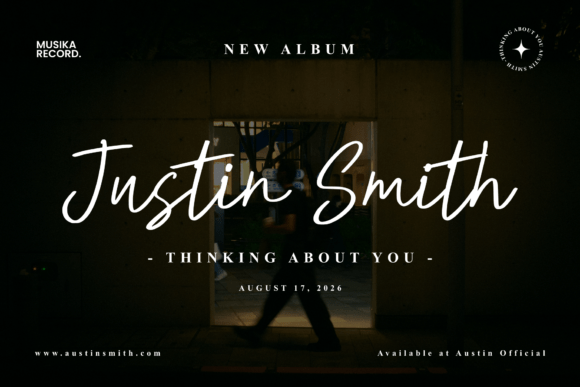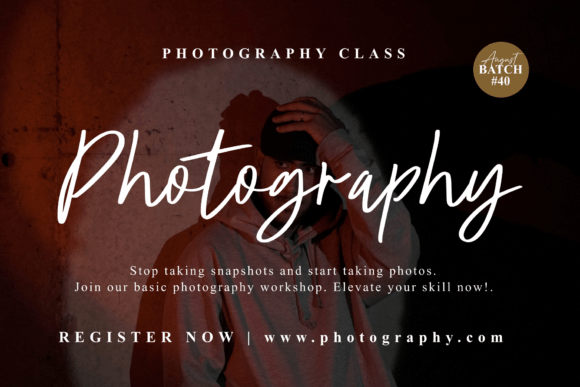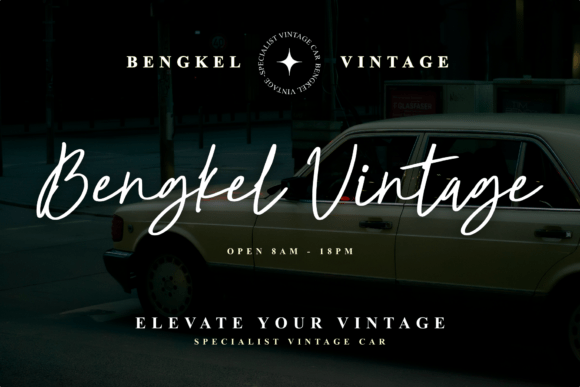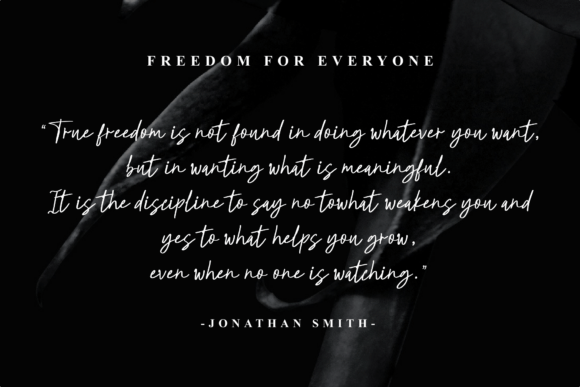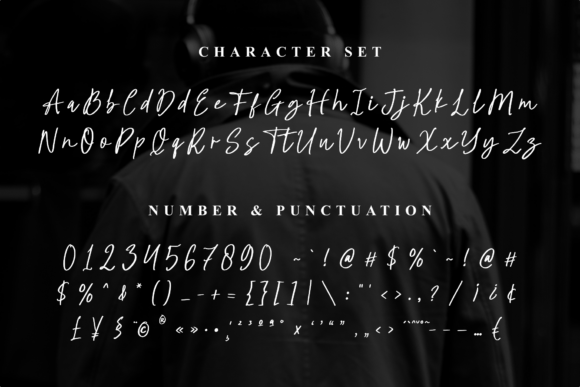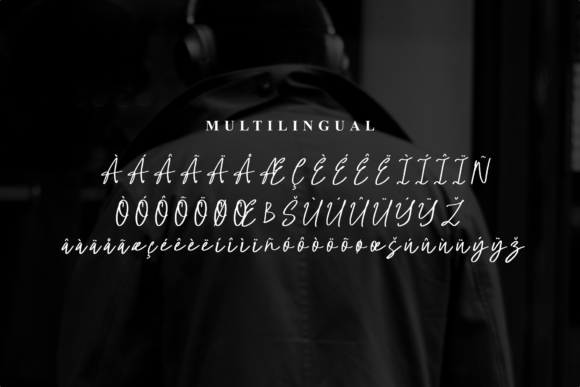
Introducing Blastery Signature Font: The Sweet and Cursive Handwriting Font for Your Design Needs
Are you a designer or crafter looking for a font that can add a touch of elegance and whimsy to your projects? Look no further than Blastery Signature Font! This beautiful, cursive handwriting font is perfect for a variety of design ideas and is sure to make your work stand out. In this article, we’ll take a closer look at Blastery Signature Font and explore its features, uses, and benefits.
What is Blastery Signature Font?
Blastery Signature Font is a sweet and cursive handwriting font that is designed to add a fun and romantic touch to any project. Its soft, flowing lines and delicate curves make it perfect for creating beautiful, eye-catching designs. Whether you’re working on a branding project, creating a logo, or designing a wedding favor, Blastery Signature Font is the perfect choice.
Features of Blastery Signature Font
So, what makes Blastery Signature Font so special? Here are just a few of its key features:
- Cursive handwriting style: Blastery Signature Font has a beautiful, cursive handwriting style that is perfect for creating elegant and sophisticated designs.
- Soft and delicate curves: The font’s soft and delicate curves make it perfect for creating romantic and whimsical designs.
- Fun and playful vibe: Despite its elegance, Blastery Signature Font also has a fun and playful vibe that’s perfect for creating designs that are a little bit quirky and offbeat.
- Highly versatile: Blastery Signature Font can be used for a wide range of design projects, from branding and logos to wedding favors and greeting cards.
Uses for Blastery Signature Font
So, what can you use Blastery Signature Font for? The possibilities are endless! Here are just a few ideas to get you started:
- Branding and logos: Blastery Signature Font is perfect for creating beautiful, elegant logos and branding materials.
- Wedding favors: The font’s romantic and whimsical vibe makes it perfect for creating beautiful wedding favors, such as invitations, programs, and decorations.
- Greeting cards: Blastery Signature Font is also great for creating beautiful, one-of-a-kind greeting cards for special occasions.
- Fashion and lookbooks: The font’s elegant and sophisticated style makes it perfect for creating fashion lookbooks, catalogs, and other marketing materials.
- Marketing promotions: Blastery Signature Font can also be used to create eye-catching marketing materials, such as flyers, brochures, and posters.
Benefits of Using Blastery Signature Font
So, why should you choose Blastery Signature Font for your design projects? Here are just a few benefits of using this beautiful font:
- Adds elegance and sophistication: Blastery Signature Font adds a touch of elegance and sophistication to any design project.
- Creates a romantic and whimsical vibe: The font’s soft and delicate curves create a romantic and whimsical vibe that’s perfect for a variety of design projects.
- Highly versatile: Blastery Signature Font can be used for a wide range of design projects, making it a great addition to any designer’s toolkit.
| Font Name | Blastery Signature Font |
| Author | NH Studio |
In conclusion, Blastery Signature Font is a beautiful, cursive handwriting font that is perfect for adding a touch of elegance and whimsy to any design project. Its soft and delicate curves, fun and playful vibe, and high versatility make it a great choice for designers and crafters alike. Whether you’re working on a branding project, creating a logo, or designing a wedding favor, Blastery Signature Font is the perfect choice. So why wait? Download Blastery Signature Font today and start creating beautiful, eye-catching designs!